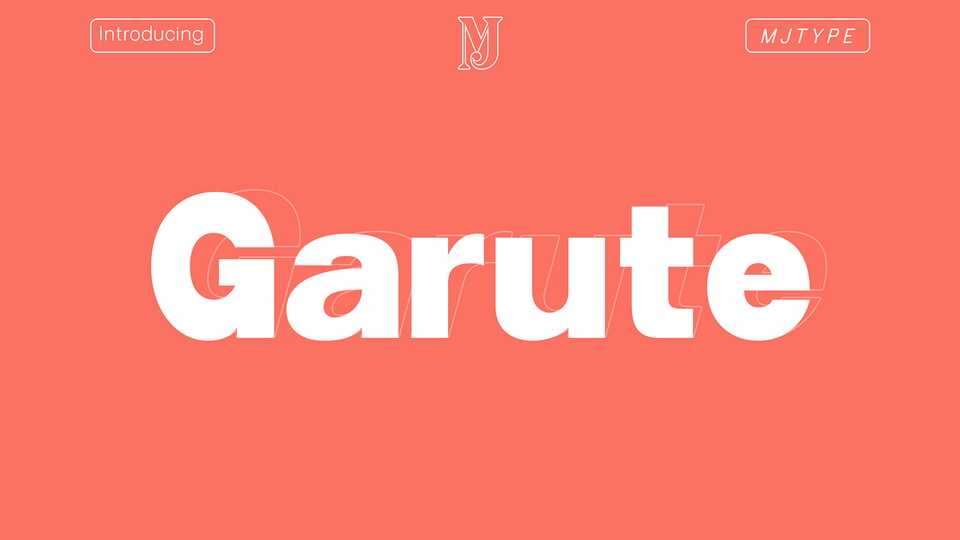
Download Garute font, a modern sans serif typeface that brings personality and style to your designs. Its clean, straight lines and contemporary feel make Garute font perfect for modern design projects.